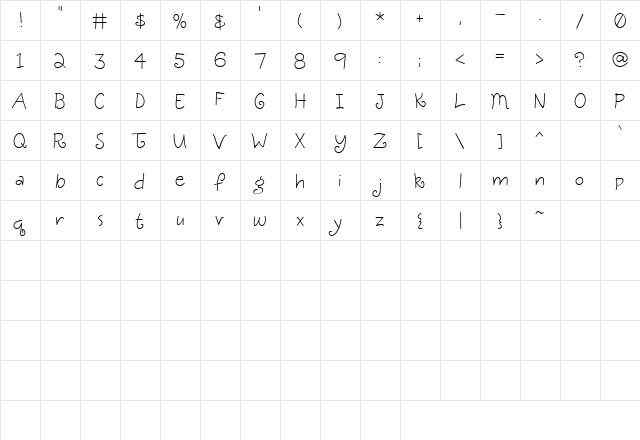
Scrap Baby Regular
Design Context for Scrap Baby Typeface
Scrap Baby is a composed and adaptable typeface that performs quietly and consistently across a wide range of design contexts.